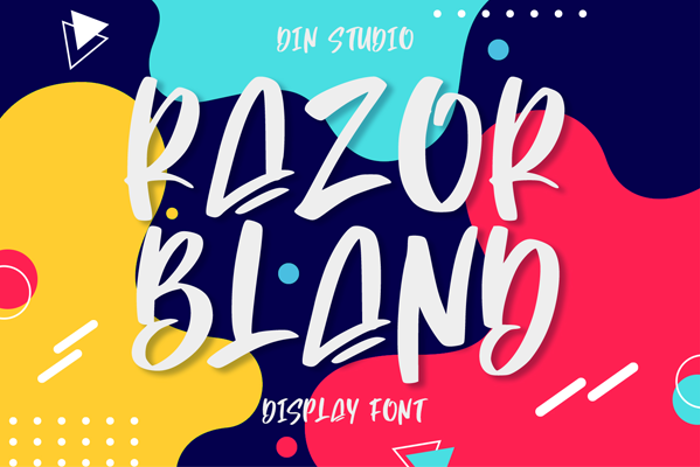
Razor Bland Font
Product Description :
Razor Bland is a classy font. Made for any professional project branding. It is the best for logos, branding and quotes. Every letter has a unique and beautiful touch.